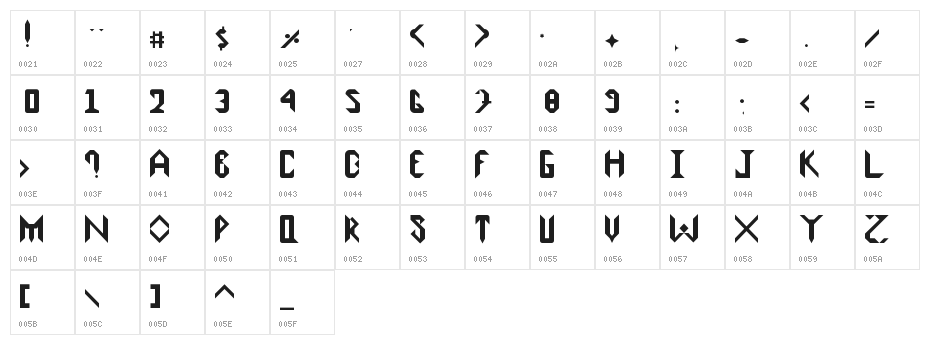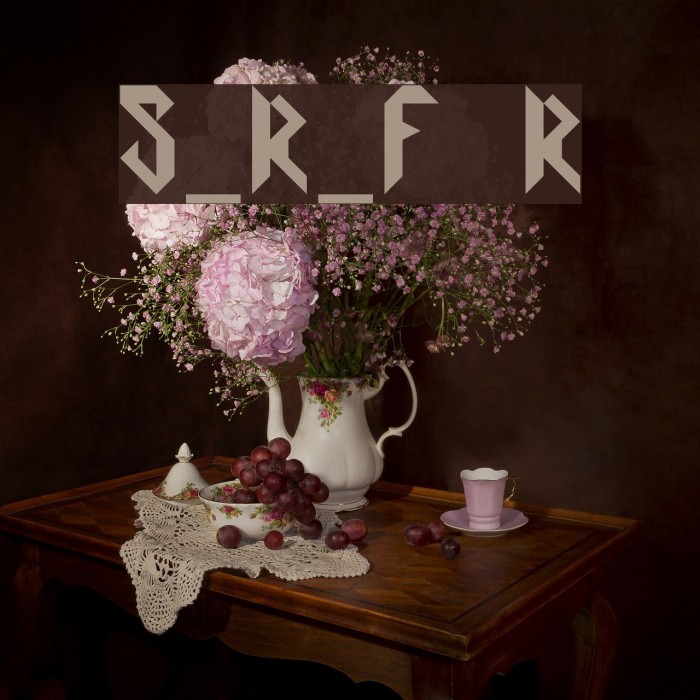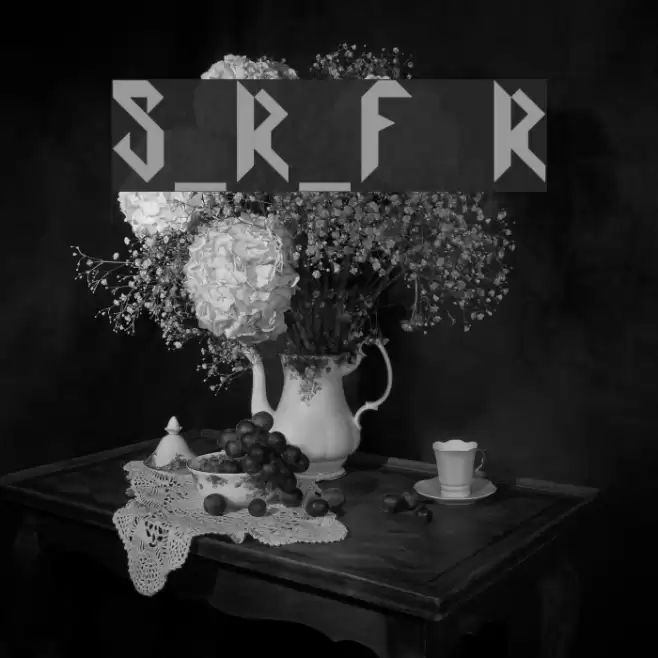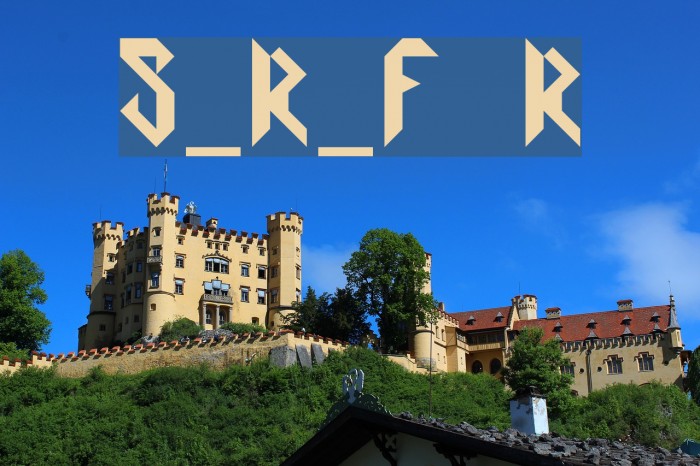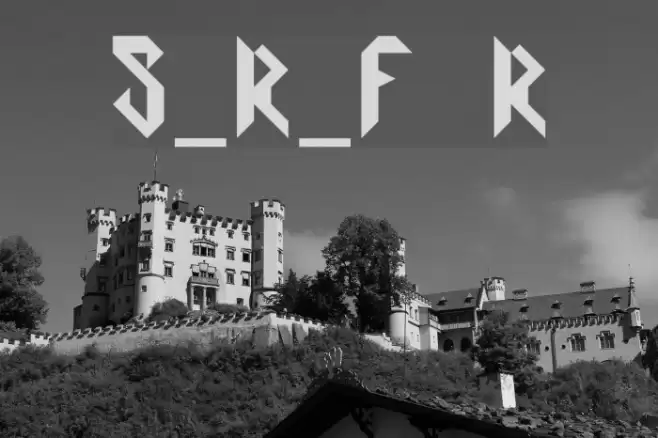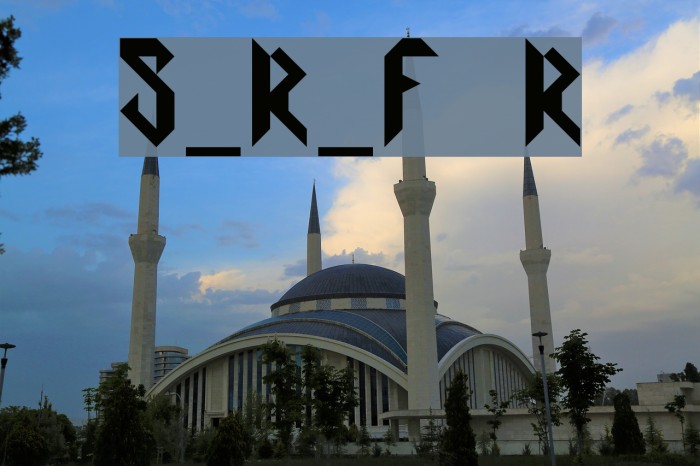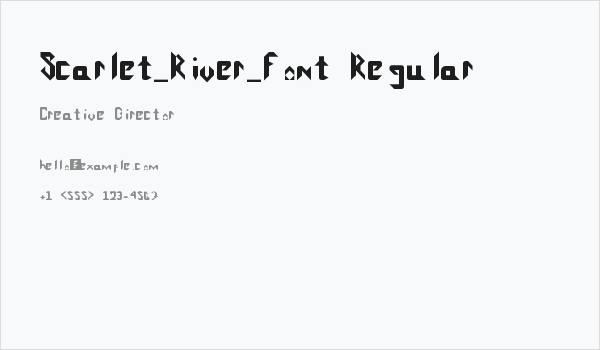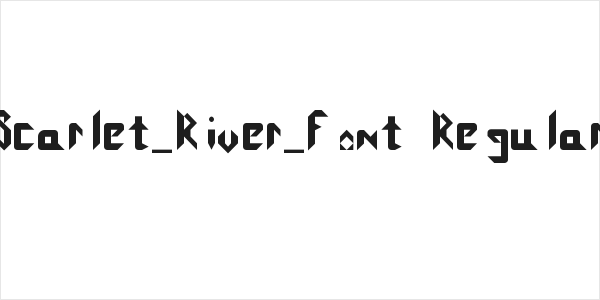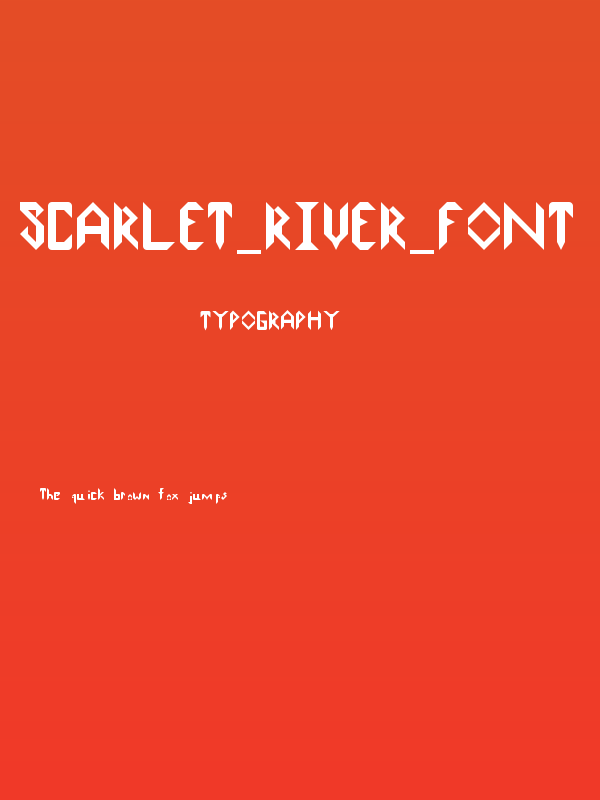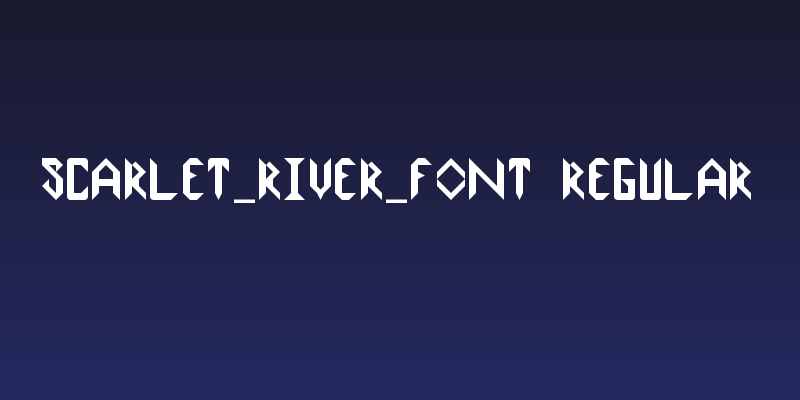
Scarlet_River_Font Regular Font
Scarlet_River_Font Regular Description
This font exhibits a bold and geometric style, characterized by sharp angles and a modern, edgy appearance. The uppercase letters are particularly striking, with a futuristic and almost industrial feel. The lowercase letters maintain this aesthetic, offering a cohesive look across the alphabet. Numbers and special characters are designed with the same angular precision, making them stand out. The overall design is highly decorative, making it suitable for projects that require a strong visual impact. Its unique style is both eye-catching and memorable, ideal for creative and artistic applications.
| Proposed Projects | Ideal for branding, posters, album covers, and any project needing a strong visual impact. |